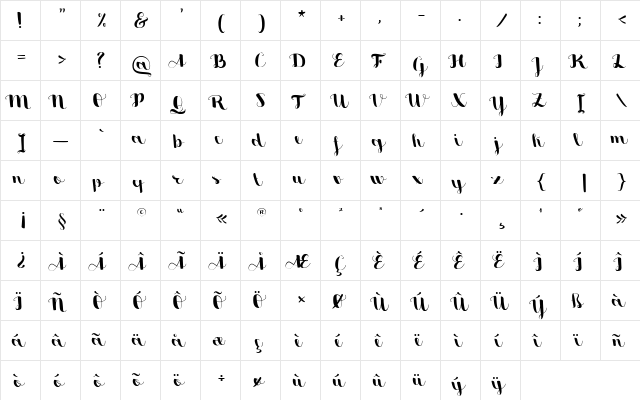
Sweetheart Script Medium
| Foundry | Monocromo s.n.c. |
| Designer | Andrea Cerboneschi for Monocromo |
Design Context for Sweetheart Script Typeface
Sweetheart Script flows with the natural rhythm of handwritten lettering, making it ideal for designs that call for warmth and personal expression.
Font Pairing: Combine Sweetheart Script with a simple geometric sans for maximum contrast — the tension between flowing curves and clean structure is a classic typographic pairing.
Pro Tip: Pair Sweetheart Script with a clean sans-serif for supporting text. The contrast between fluid script and geometric structure creates an elegant typographic hierarchy.